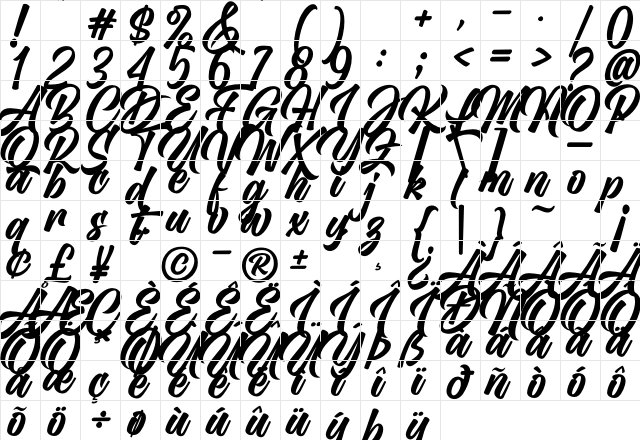
Complete Sunday Midnight Regular glyph index. Displaying only characters natively supported by Sunday Midnight Regular font.
Sunday Midnight is a composed and adaptable typeface that performs quietly and consistently across a wide range of design contexts.